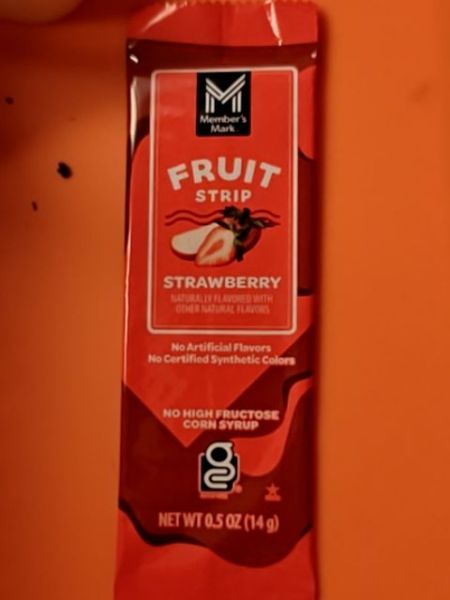
Member's Mark Fruit Strip
A strawberry-flavored fruit strip designed to be a sweet snack option with natural flavors.
The typography is clean and modern, using a sans-serif font that provides clarity and readability. The brand 'Member's Mark' is at the top in a bold, all-caps style, which is cohesive with the strong, bold presentation of the product name 'FRUIT STRIP'. The use of capital letters for key product attributes enhances the sense of quality and straightforwardness.
The packaging uses a vibrant red background that highlights the strawberry theme. An illustration of strawberries is prominently featured in the center, communicating the flavor. It has a clear, modern design with white text that contrasts well with the background.
- Contains no artificial flavors.
- No certified synthetic colors are used.
- Free from high fructose corn syrup.